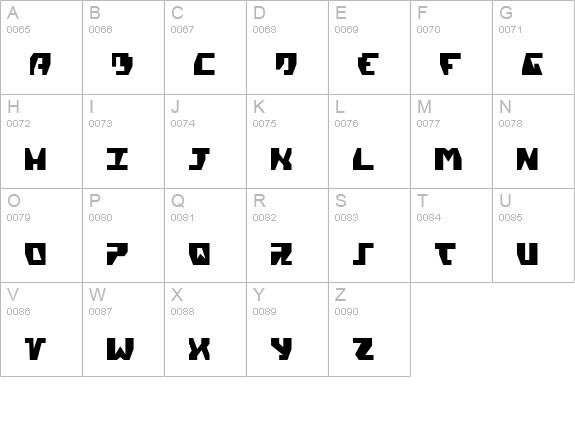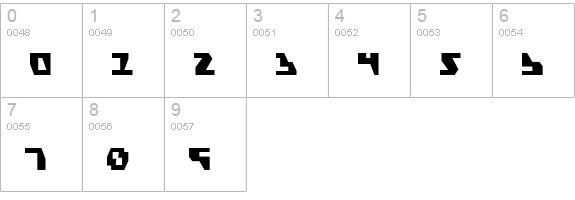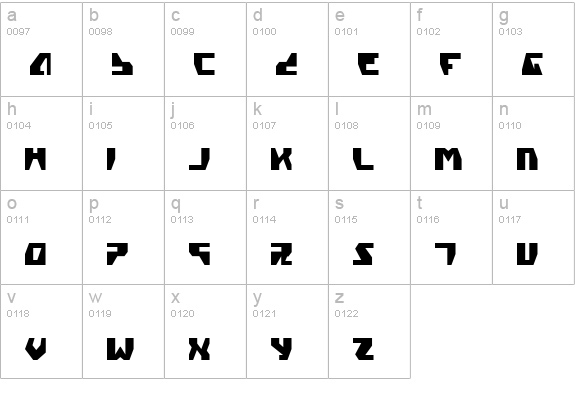
Gyrfalcon Condensed is a distinctive, condensed-width variant in the Gyrfalcon typeface family \xE2\x80\x94 well suited to design and typography projects.
Introducing Gyrfalcon Condensed font, a sleek and modern typeface designed to make a bold statement in any project. This condensed version of the Gyrfalcon font family exudes elegance and sophistication, making it perfect for branding, advertising, and editorial design. With its clean lines and sharp edges, Gyrfalcon Condensed commands attention and adds a touch of professionalism to any layout. What's even better is that Gyrfalcon Condensed font is available for free download at FontsMarket.com. You can easily access this versatile typeface and elevate your creative projects without breaking the bank. Don't miss out on the opportunity to enhance your designs with the timeless appeal of Gyrfalcon Condensed font - get your free copy today!